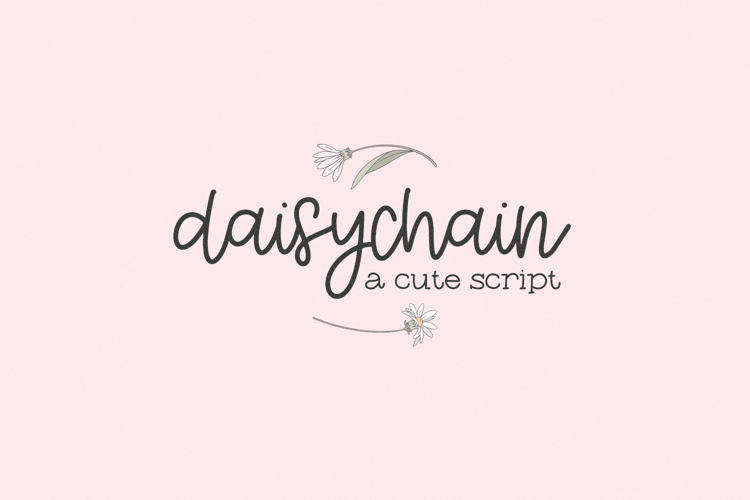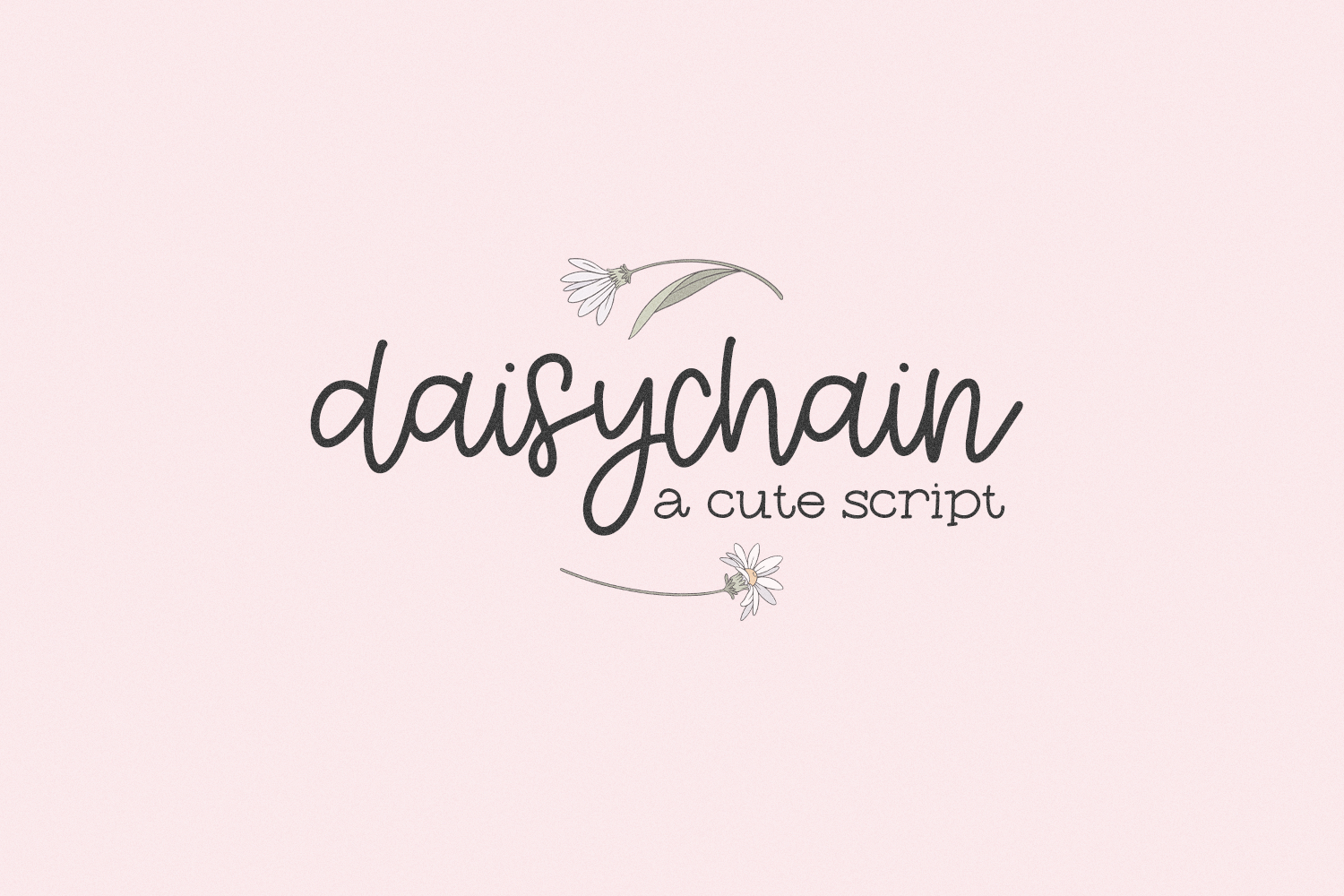
Daisychain Script is a modern monoline calligraphy font. This font is perfect for logos & branding, greeting cards, painted banners, digital planners, note-taking apps, Canva, Cricut projects, Silhouette projects, designing SVG files, laser cutting projects, & more.